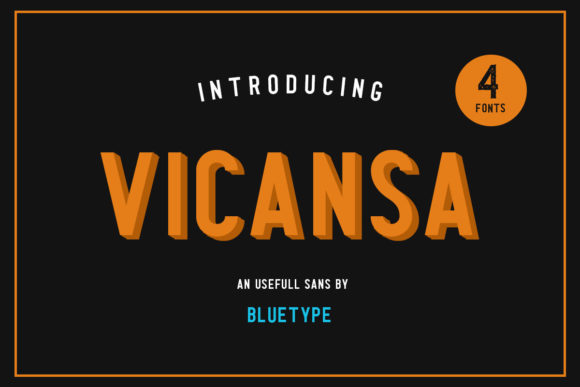
**Vicansa Sans: Your Gateway to Limitless Design Possibilities**
Prepare to be captivated by Vicansa Sans, a stunning sans serif font family that exudes casual elegance, simplicity, and modernity. From the creative mind of Rillatype, Vicansa Sans is a font collection that defies limitations, inviting you to embark on a journey of limitless design possibilities.
**Embrace the Versatility of Vicansa Sans**
With four distinct versions at your disposal, Vicansa Sans empowers you to tailor your creations to perfection. Whether you seek a classic, contemporary, or playful aesthetic, Vicansa Sans effortlessly adapts to your vision. Mix and match the fonts to forge a unique typographic identity that leaves a lasting impression.
**Unearth the Beauty of Simplicity**
Vicansa Sans embraces the beauty of minimalism, allowing your designs to shine through with uncluttered clarity. Its clean lines and open forms create a visual harmony that invites readers to delve deeper into your content. Let Vicansa Sans be your canvas, transforming ordinary words into captivating narratives.
**Craft Designs that Speak to the Heart**
Harness the charm of Vicansa Sans to craft designs that resonate with your audience, touching their hearts and sparking their imaginations. Its casual and friendly nature lends itself perfectly to branding, marketing materials, social media posts, and any project that demands a personal touch. Engage your audience with messages that connect on a deeper level, leaving an indelible mark on their minds.
**Experience the Joy of Seamless Integration**
Vicansa Sans is a font family designed for effortless integration into your design workflow. Its unwavering consistency across all four versions ensures seamless transitions, allowing you to craft cohesive designs with ease. Whether you're working with print or digital media, Vicansa Sans adapts gracefully to your chosen medium, delivering impeccable results every time.
**Embark on a Typographic Adventure with Vicansa Sans**
Let Vicansa Sans be your trusted companion on your typographic adventures. Unleash your creativity and explore uncharted design territories. From whimsical invitations to sophisticated presentations, Vicansa Sans empowers you to craft designs that are both visually captivating and profoundly impactful. Discover the transformative power of simplicity and versatility, and let Vicansa Sans elevate your designs to new heights.